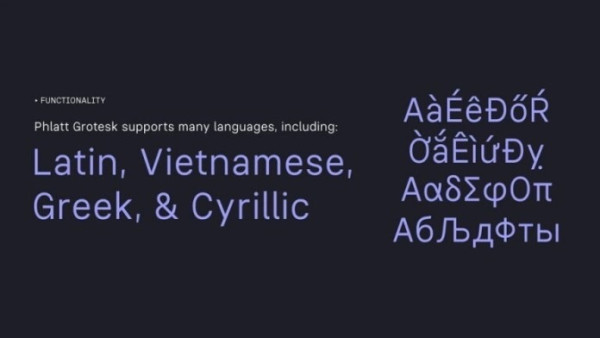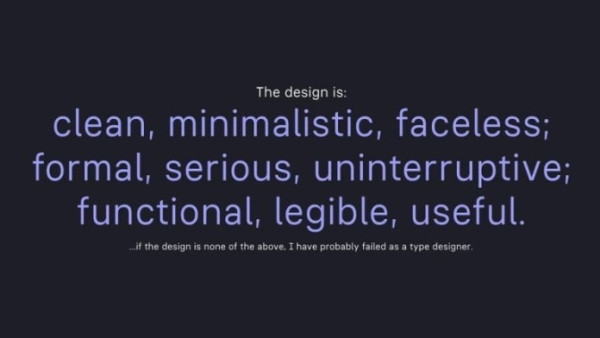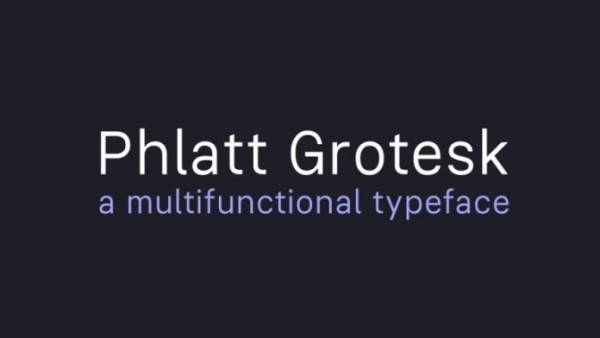
Phlatt Grotesk Font
Phlatt Grotesk Font by RandomMaerks is a free sans serif font created by RandomMaerks with a clean and elegant geometric touch. The design is meant to be the most default-looking, neutral, faceless, non-distracting piece of work, but simultaneously useful and advantageous in many cases.
Phlatt Grotesk, despite its laughable name (originally called Flat, but was changed for some unknown reason), was designed to be a serious typeface. It is extremely functional, legible, and useful. The design is inspired by the feel of Inter and the “flat” sides of Roboto (basically the entire Apple’s SF family).
Phlatt Grotesk font may not visually attract the eyes of the viewers, but it may save you a lot of headaches when you decide to make a language-specific program (if that makes sense) or a dictionary.